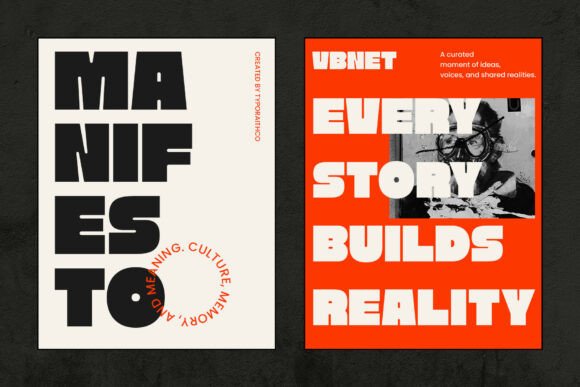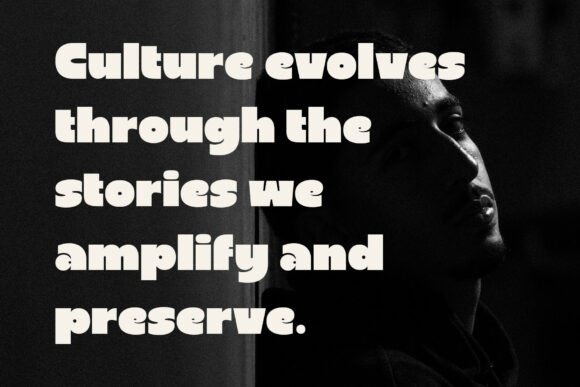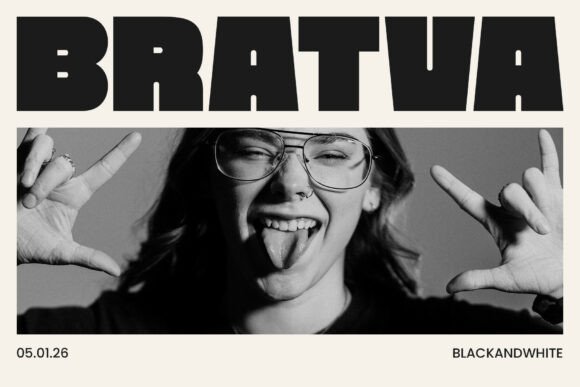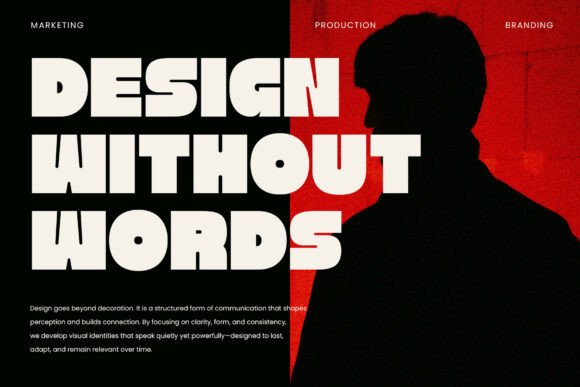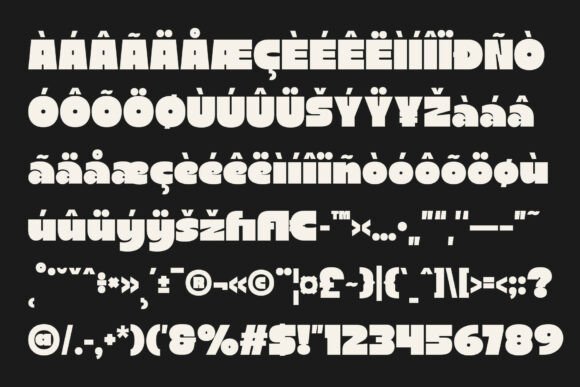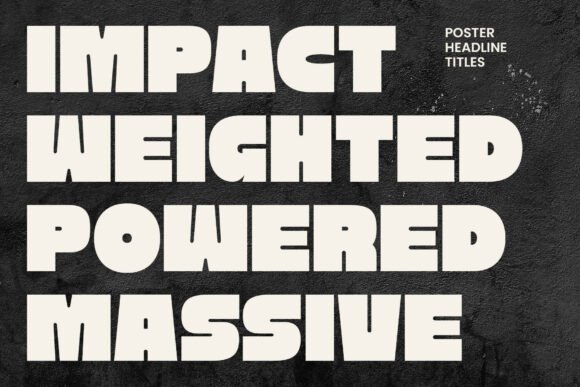
Introduction to Megra Font
Megra Bold is a modern heavy sans serif font designed to make a strong visual impact.
With bold proportions and clean geometric forms, this typeface is perfect for designers who need a powerful and confident look Ideal for branding, posters, headlines, logos, editorial layouts, and social media designs, Megra Bold delivers clarity, strength, and modern character in every composition.